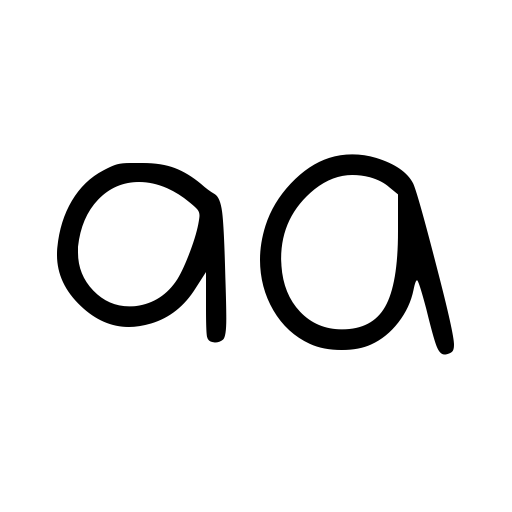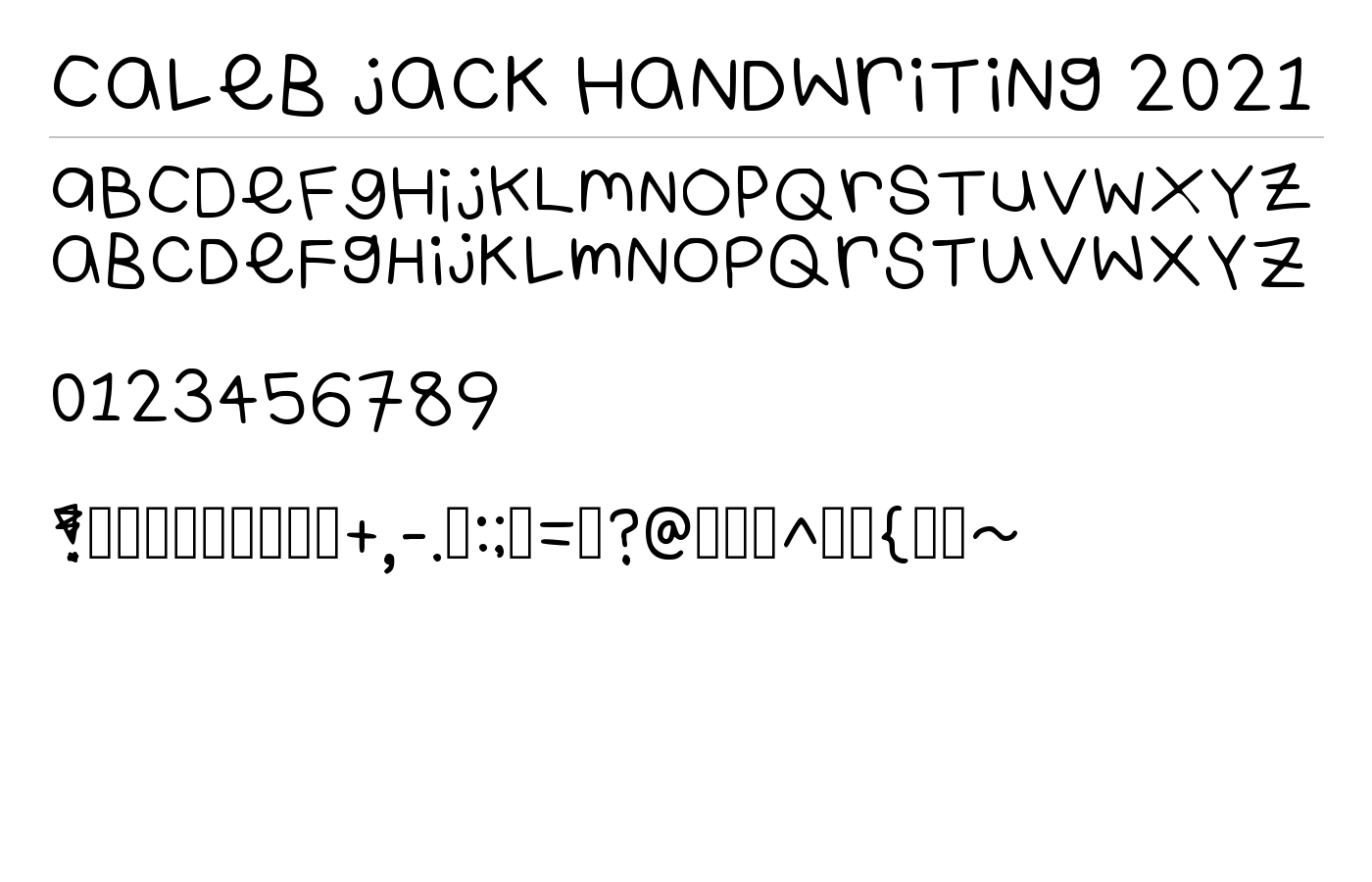
Caleb Jack Handwriting 2021 is a playful and charming handwritten sans serif font with a casual, slightly irregular style that mimics natural pen strokes. Its light weight and open letterforms create an airy, friendly feel ideal for informal, creative designs such as children’s books, personal branding, or fun editorial projects. This font works best in headings and short texts where a personal, approachable vibe is desired.
Caleb Jack Handwriting 2021 Font
About Caleb Jack Handwriting 2021 Font
| Font family | Caleb Jack Handwriting 2021 Font |